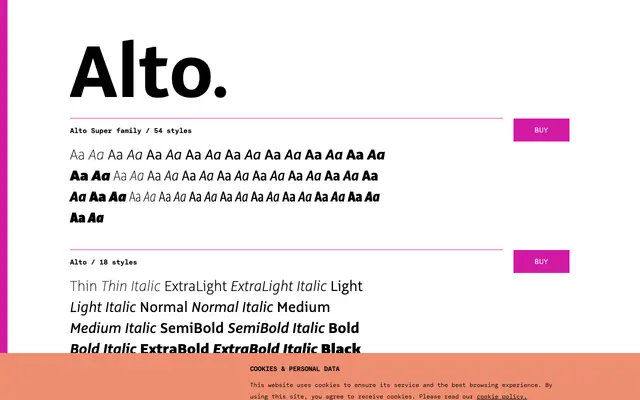
A 54-style grotesque superfamily spanning three widths and nine weights, built for demanding editorial and identity work.
Alto is a grotesque superfamily comprising three sub-families: Alto, Alto Condensed and Alto ExtraCondensed, each available in nine weights from Thin to Black with matching italics. The family supports an extensive set of OpenType features including small capitals, oldstyle figures, tabular figures, fractions, stylistic alternates and three stylistic sets. The width range makes it well suited to both continuous text and tightly set display typography.
Alto presents as a contemporary grotesque sans-serif with a wide weight range and condensed variants, typical of workhorse grotesque superfamilies designed for versatile editorial and commercial use.